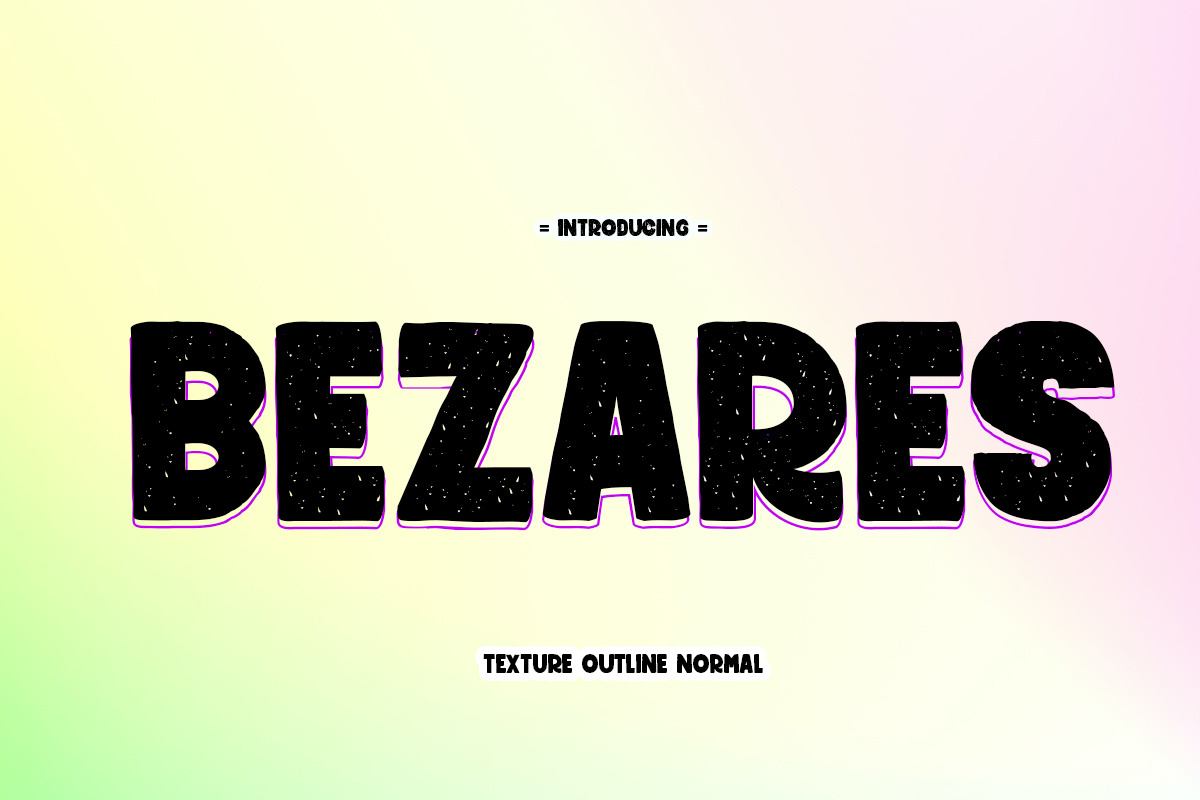
Bezares Display Font Free Download is a bold and elegant typeface designed to make a statement. With its distinctive letterforms and striking appearance, this display font is perfect for large-scale designs, logos, headlines, posters, branding, and other projects where a strong typographic presence is required.
Bezares combines modern geometry with a touch of sophistication, making it ideal for high-impact visuals that need to capture attention. Whether you're designing for fashion, tech, or creative industries, this font provides a contemporary edge while remaining highly readable.
The font includes uppercase and lowercase letters, numerals, punctuation, and multilingual support, offering versatility for a wide range of applications.